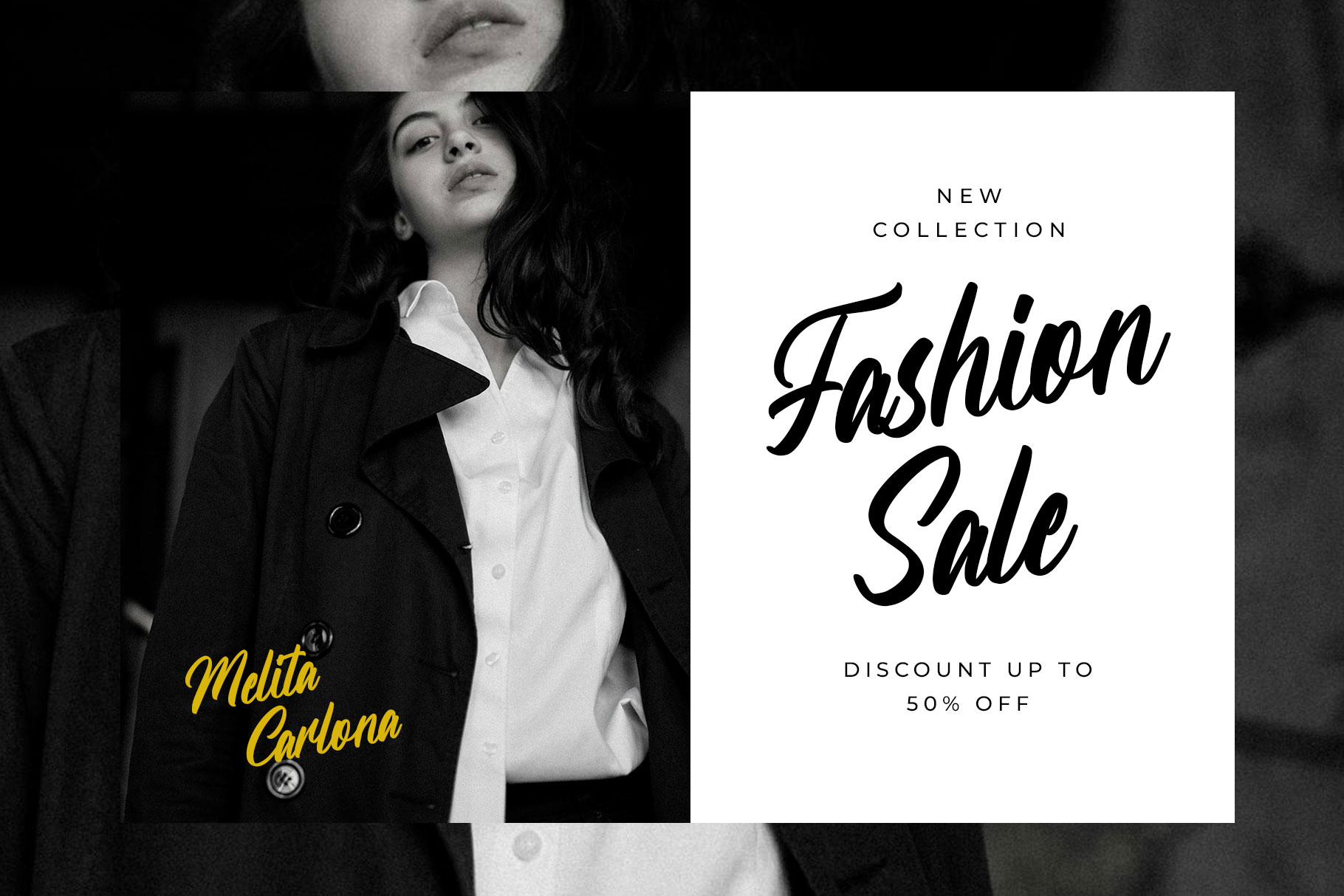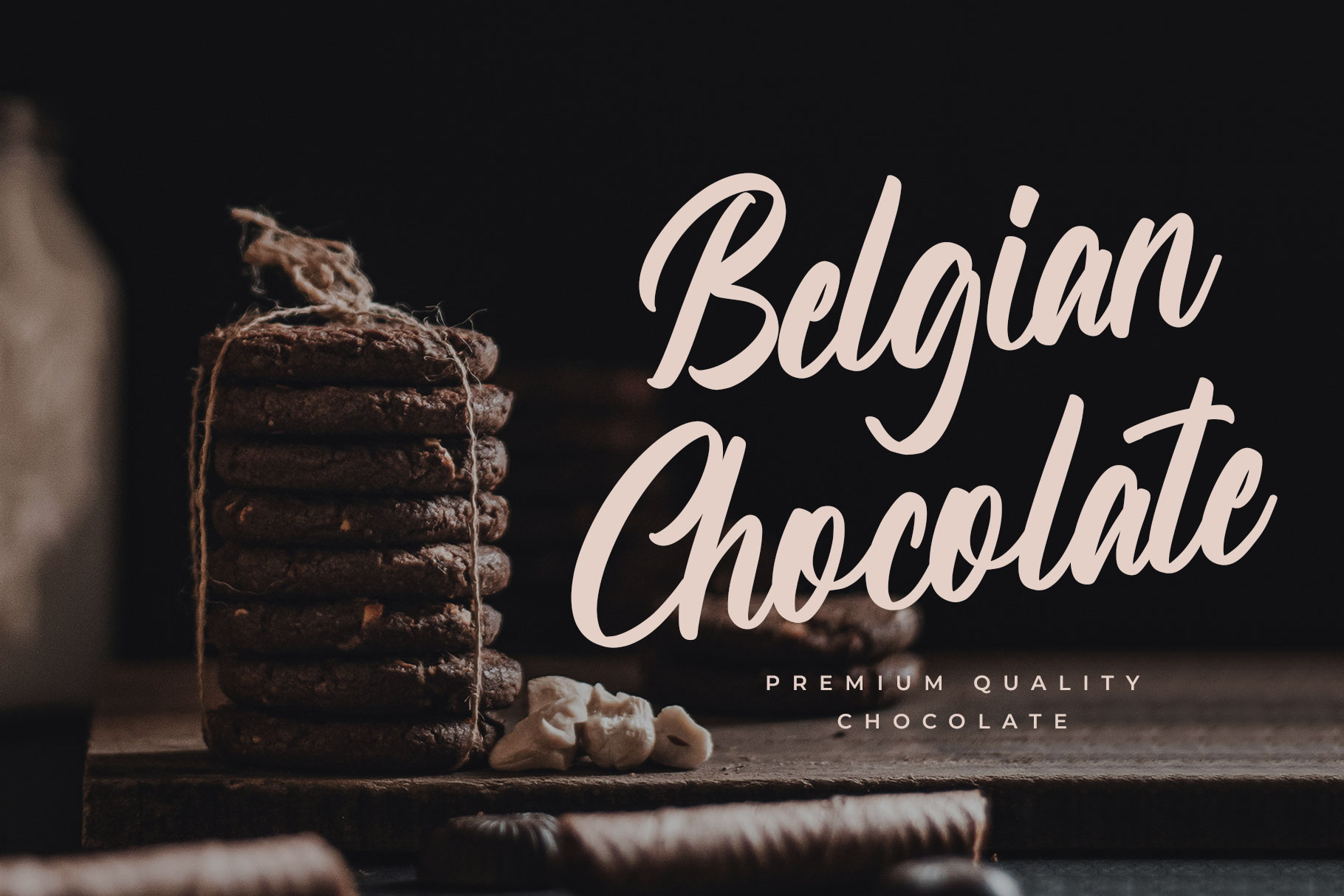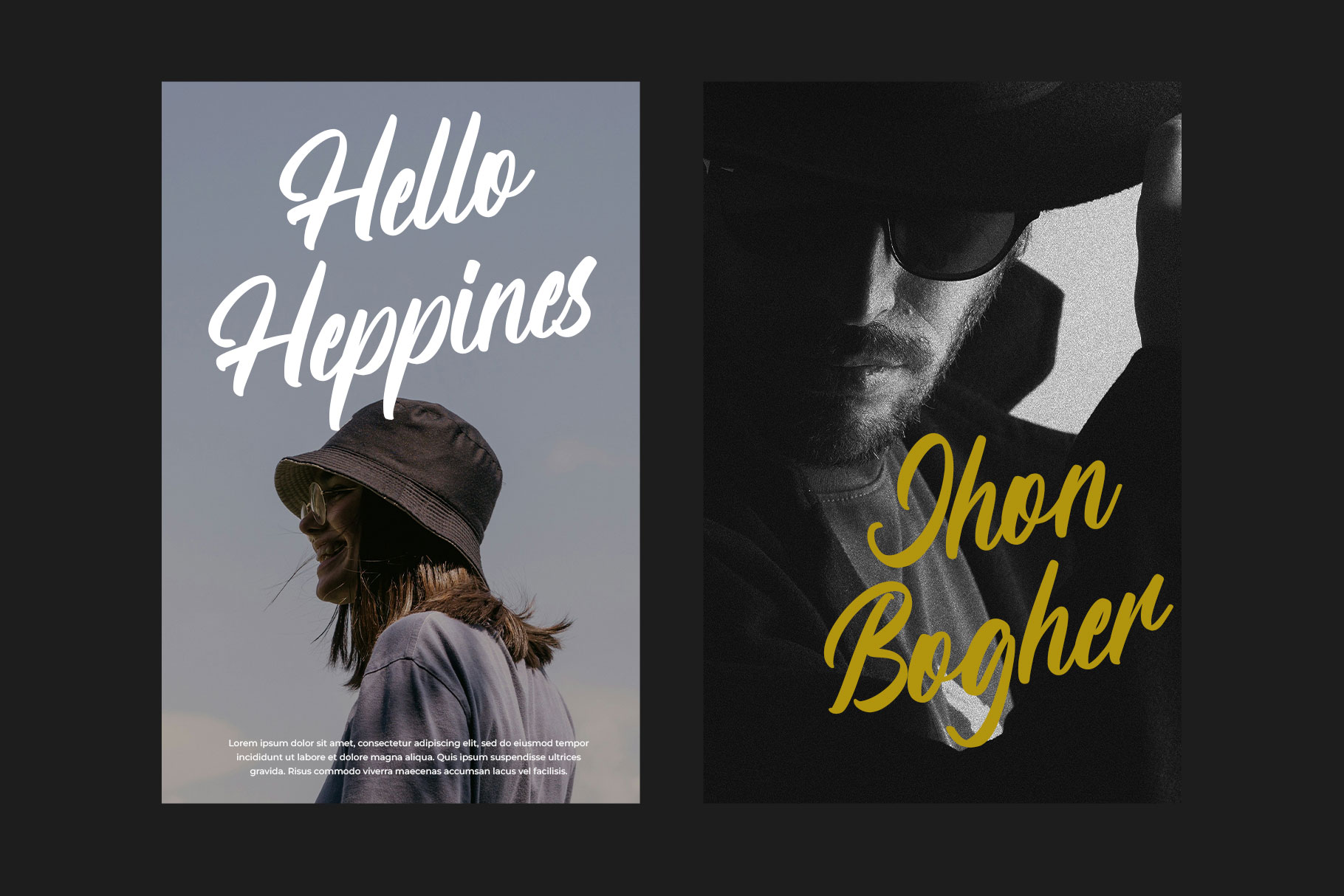
Original Poetry Modern Handwritten Font
Original Poetry is modern handwritten font with visual signature that brings personality, warmth, and authenticity to every product it touches. Original Poetry is a perfectly choice for any creative endeavor, creating, modern, lifestyle design such as logotype, title, cover, branding, invitations, wedding designs, display and magazine, social media posts, advertisements, printed quotes, product packaging, corporate brand, product designs, labels, photography, watermarks, special events and any other project with modern touch.